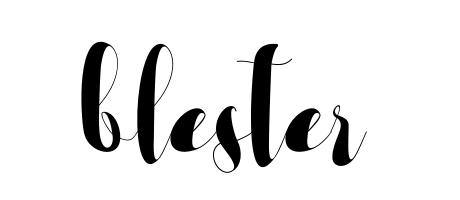
Blester
Blaster is a script font, elegant and slightly whimsical. Its flowing strokes create a sense of movement and grace. The letters are connected, giving it a fluid, handwritten feel, yet the characters maintain clear readability. It's a versatile font that could be used for logos, titles, or decorative text. The overall style is sophisticated yet playful.